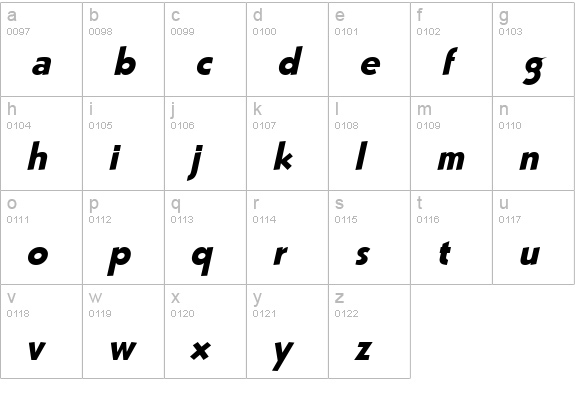
Bully Narrow BoldItalic is a distinctive, condensed-width variant in the Bully typeface family \xE2\x80\x94 well suited to design and typography projects.
Bully Narrow BoldItalic font is a striking and bold typeface that exudes confidence and sophistication. Its narrow design adds a touch of modernity, making it perfect for headlines, branding, and editorial design. The combination of bold weight and italic styling creates a unique and eye-catching look that demands attention. This font is available for free download at FontsMarket.com, where you can easily access and incorporate it into your design projects. With its strong presence and stylish flair, Bully Narrow BoldItalic font is sure to make a statement and elevate your creations to the next level.